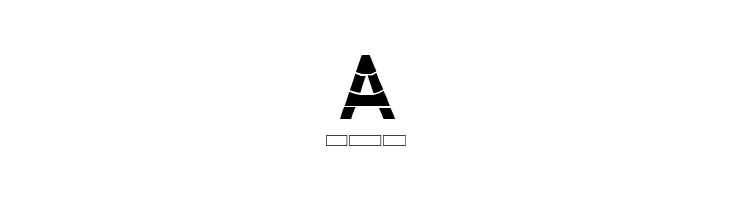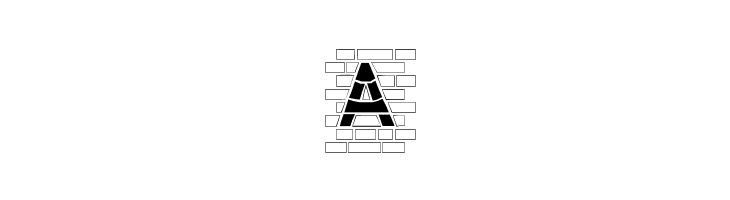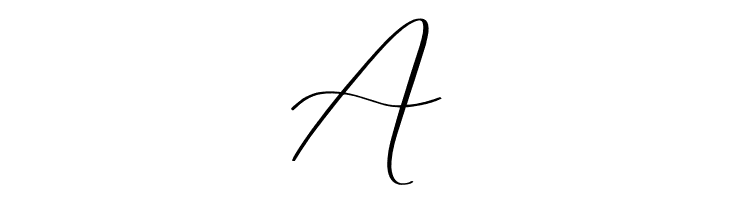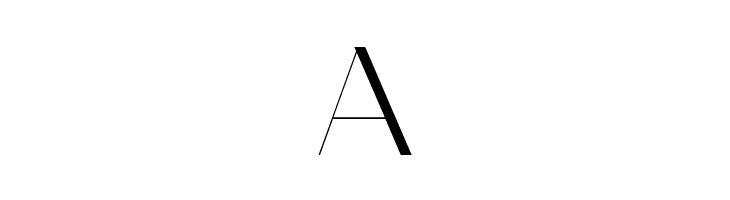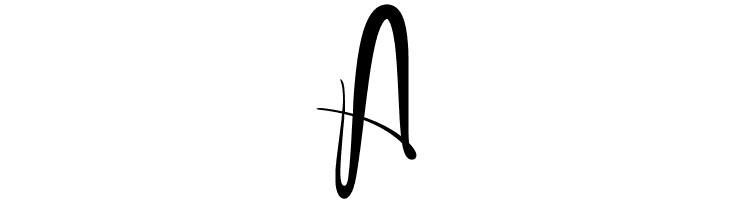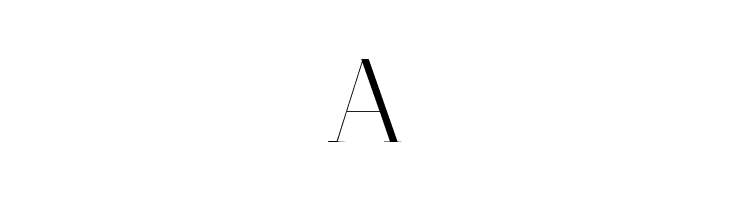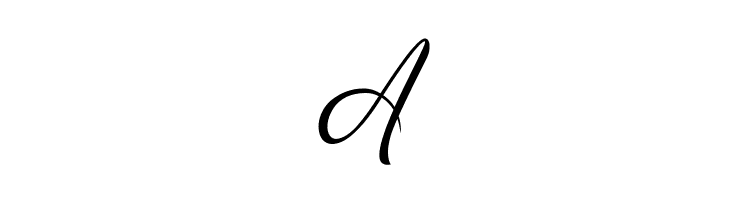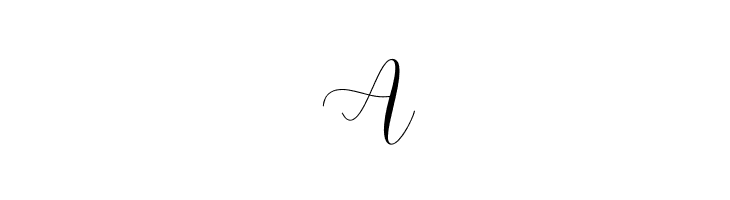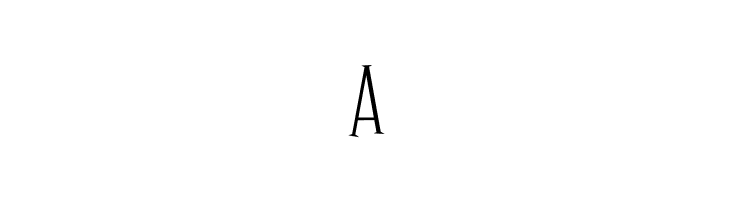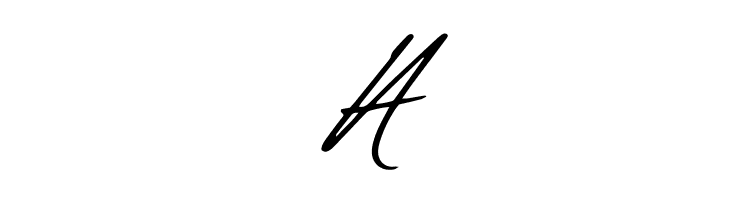
A bold, geometric stencil font with a modern, industrial aesthetic.
A bold, geometric font with a stencil-like design and high contrast.
A bold, geometric font with a brick wall pattern, ideal for decorative use.
A delicate, elegant handwritten font with thin, flowing lines and a graceful slant.
A lively, flowing handwritten script with elegant cursive strokes.
A playful, hand-drawn font with uneven strokes and a casual style.
A decorative script font with elegant, flowing strokes and interconnected characters.
An elegant script font with flowing, interconnected letters and calligraphic style.
A dynamic and fluid script font with elegant, flowing cursive letters.
A casual, handwritten font with elegant, flowing strokes.
A bold, dynamic font with sharp, angular strokes and a modern, edgy style.
A bold, brush-style font with dynamic and expressive strokes.
A whimsical, flowing script font with a playful, handwritten style.
A modern font with high contrast and elegant, angular serifs.
A sophisticated and elegant handwritten font with fluid, connected letterforms.
A high-contrast serif font with elegant curves and refined details.
A playful and elegant handwritten font with flowing cursive letterforms.
An elegant, flowing script font with graceful curves and continuous strokes.
A sophisticated script font with elegant loops and swashes, perfect for formal and creative projects.
An elegant script font with flowing, cursive letterforms and artistic swashes.
A whimsical and elegant script font with sweeping curves and playful loops.
A bold, brush-stroke style font with a hand-painted, artistic feel.
A modern, elegant script font with flowing, connected strokes and high contrast.
A graceful and flowing script font with elegant, hand-drawn characteristics.
A modern, geometric font with smooth, rounded edges and balanced spacing.
A bold, geometric sans-serif font with rounded edges and a modern style.
A modern, geometric font with clean lines and balanced spacing.
A playful, casual handwritten font with smooth, flowing lines.
A high-contrast, elegant font with modern and classic elements.
A whimsical and playful font with sharp angles and decorative swirls.
A whimsical and playful font with tall, narrow letters and unique serifs.
A whimsical, flowing script font with elegant, playful curves.
A whimsical, star-embellished decorative font with a magical flair.